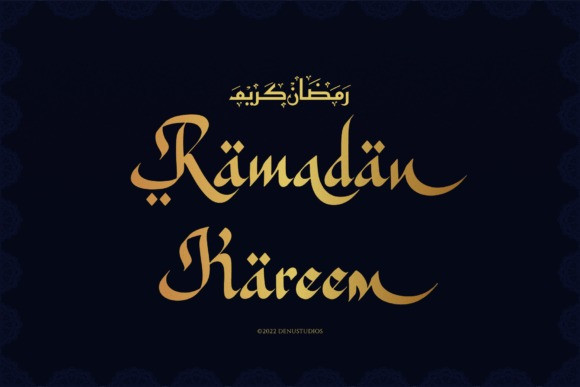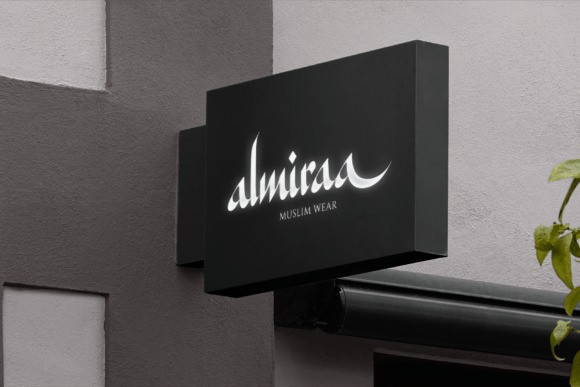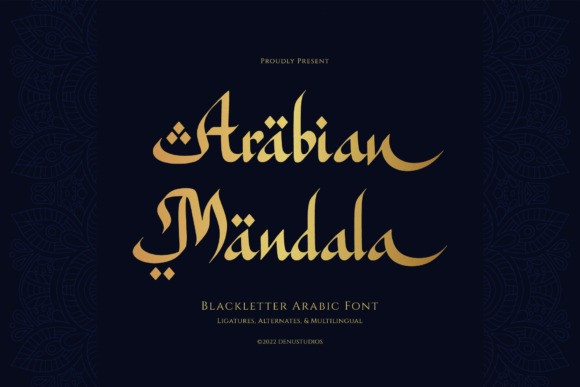
Arabian Mandala Font
Arabian Mandala Font an exquisite faux-Arabic display typeface. This unique font masterfully fuses the dense, structured geometry of traditional European blackletter calligraphy with the fluid, sweeping curves, dramatic swoops, and elegant diacritic accent aesthetics of classic Arabic script.
Arabian Mandala comes beautifully loaded with a diverse array of ligatures and decorative alternates, giving you ultimate typographic control to craft customized, high-end titles. It is a spectacular choice for luxury Middle Eastern branding, premium Ramadan and Eid celebration graphics, high-end restaurant menus, traditional spice and tea packaging, exotic book covers, and striking cosmetic logos. Bring a grand sense of exotic luxury and timeless artistry straight to your digital layout.